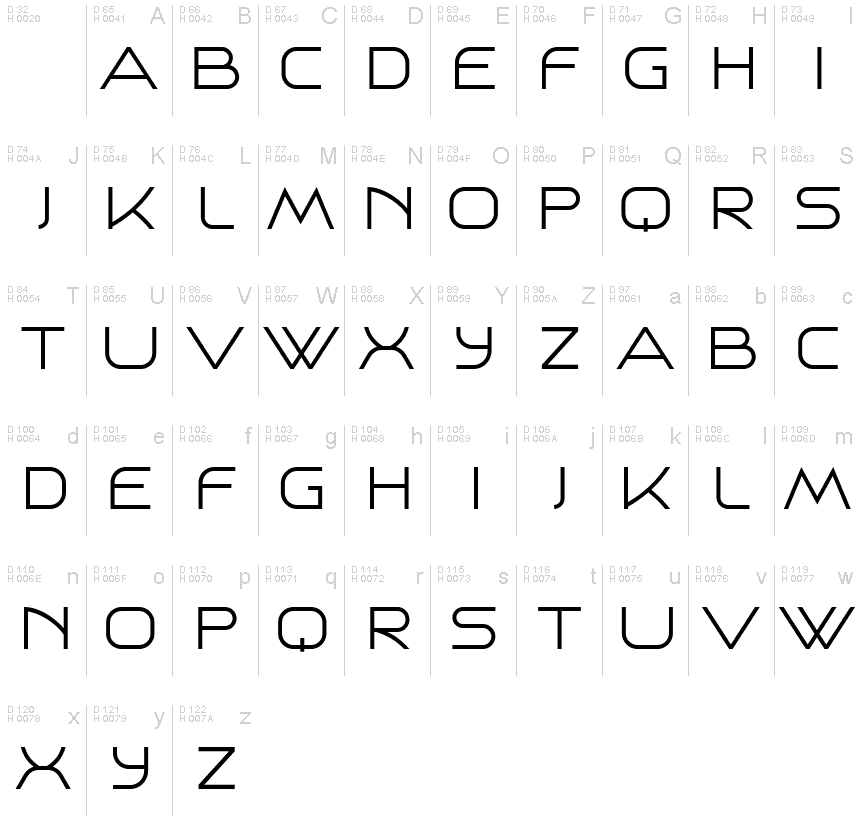
Stimulatio Regular
Stimulatio, a creation of Vladimir Nikolic, is a modern sans serif font that exudes elegance and versatility.
With its light weight and expanded width, this font is perfect for creating captivating headlines and titles. Its sleek lines and contemporary design make it ideal for branding projects, such as logos or packaging design. Stimulatio's clean and refined look also makes it suitable for website headers or magazine layouts. Whether you're aiming for a sophisticated corporate image or a trendy editorial feel, this font will surely stimulate your creative endeavors.